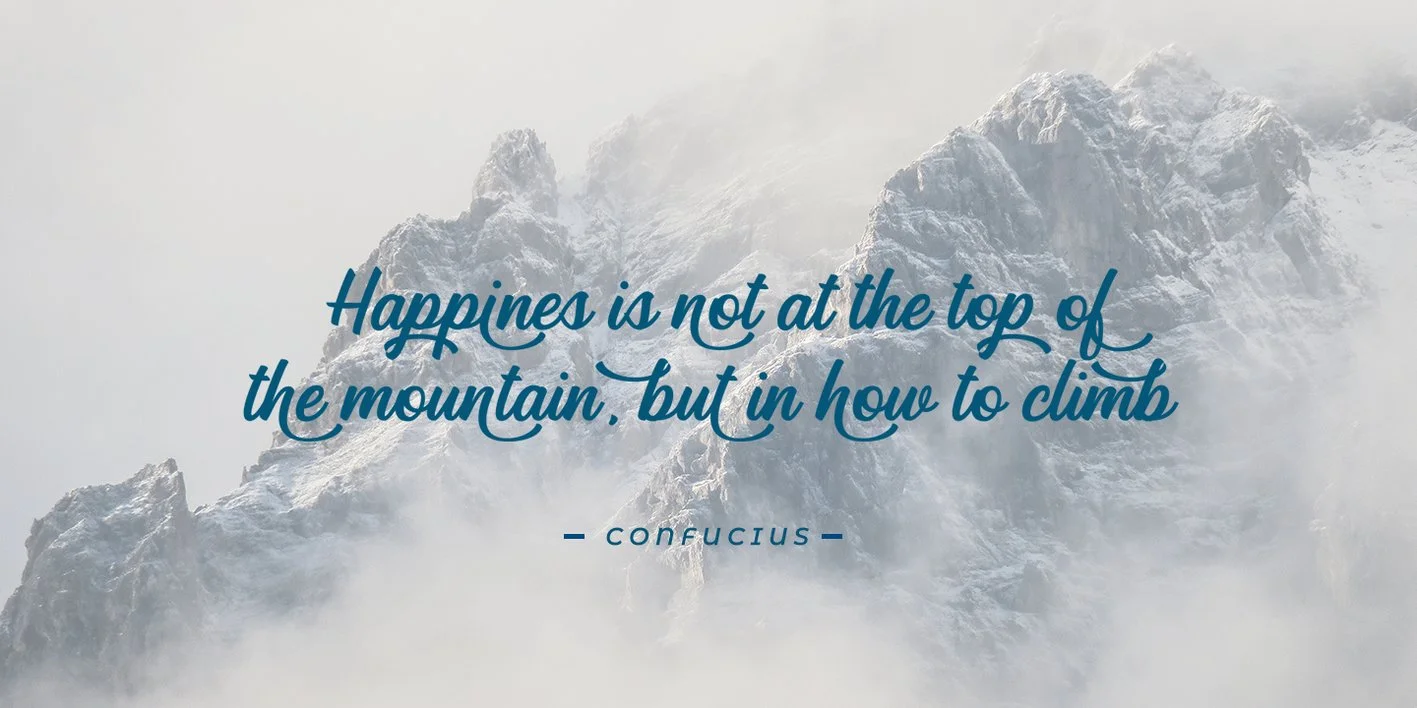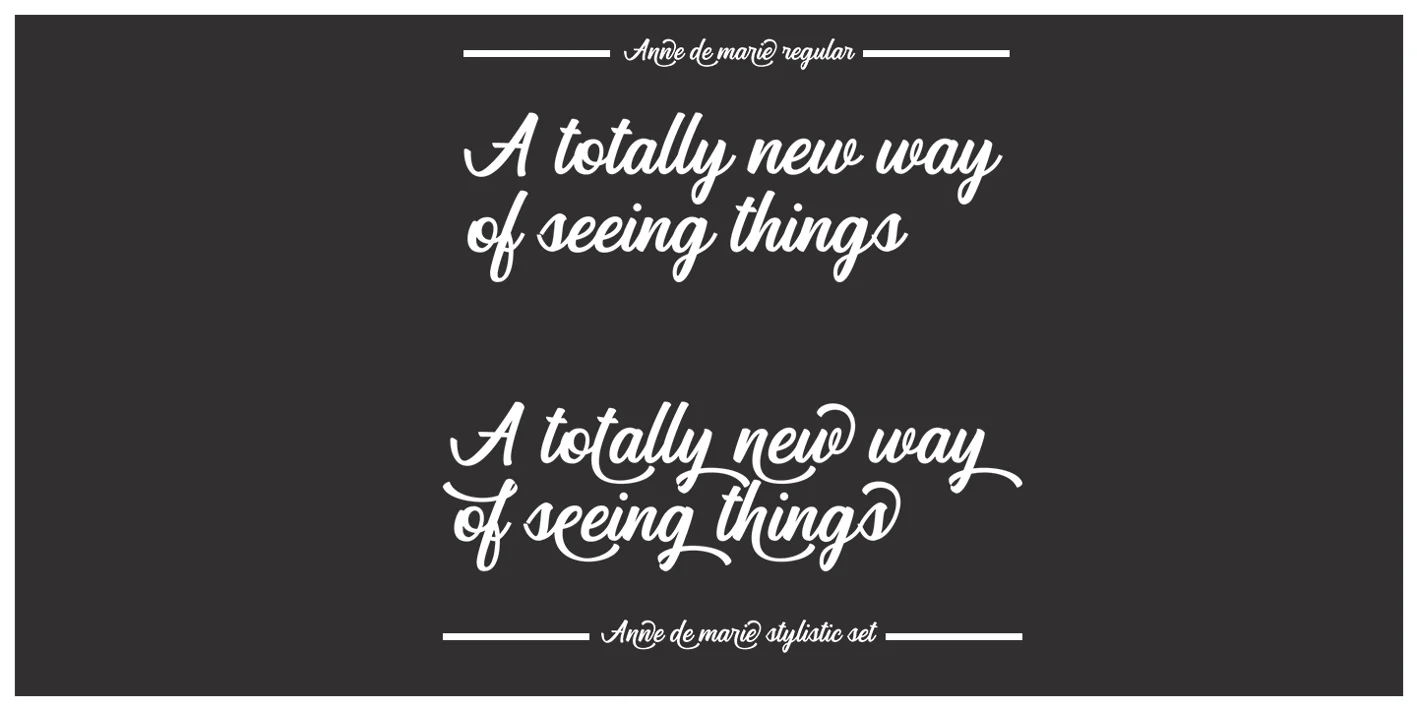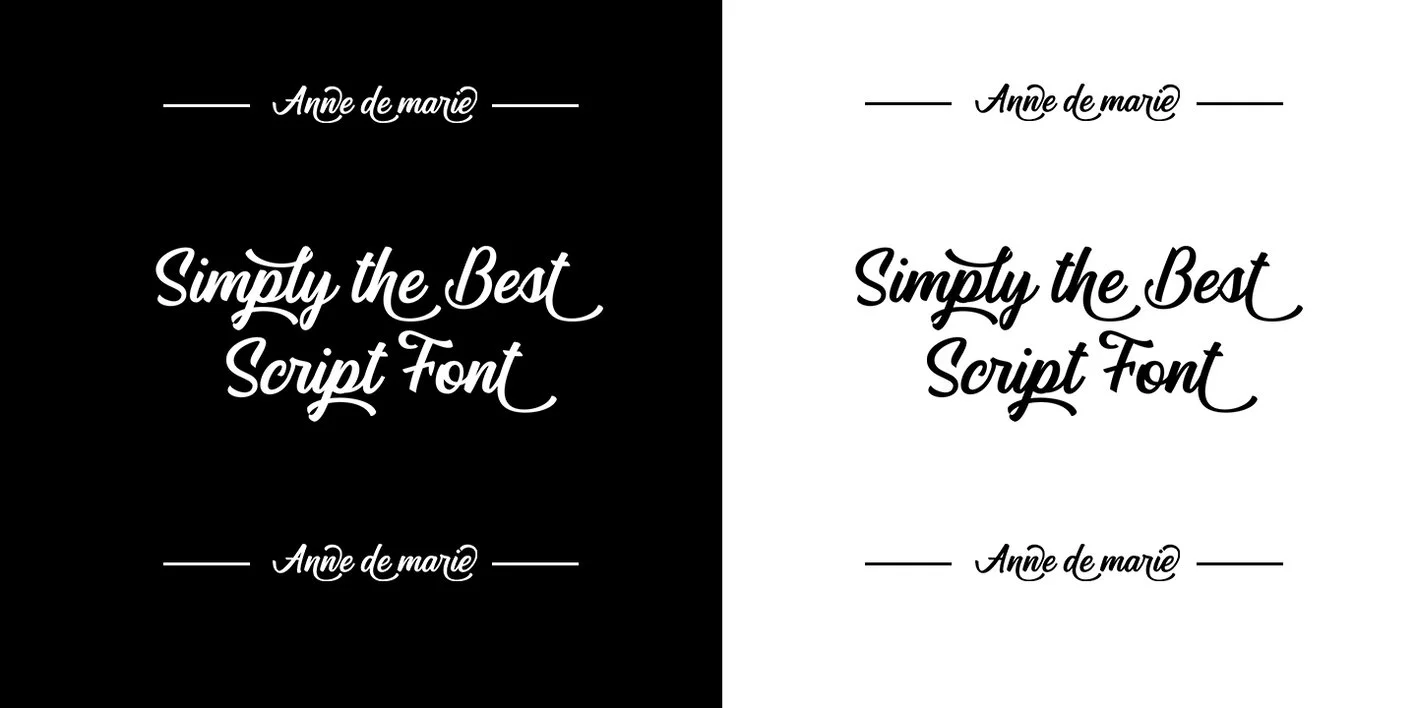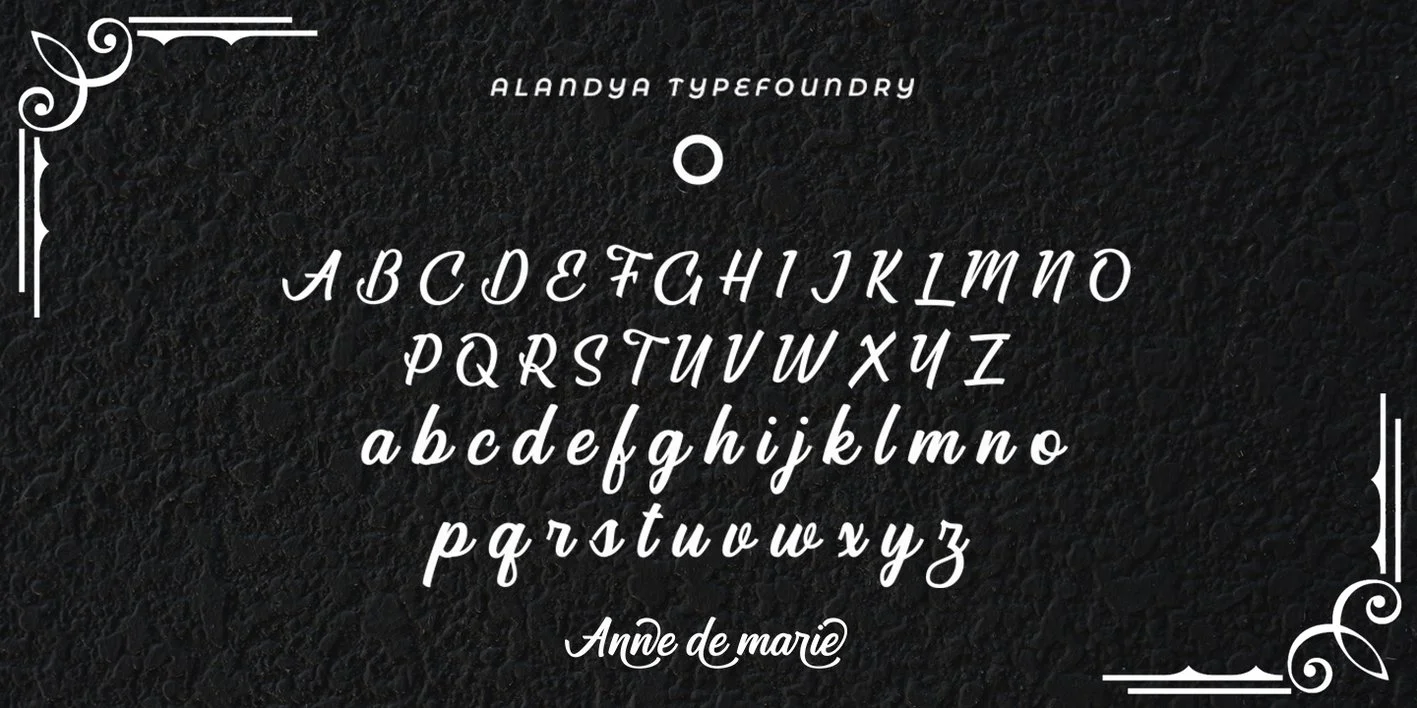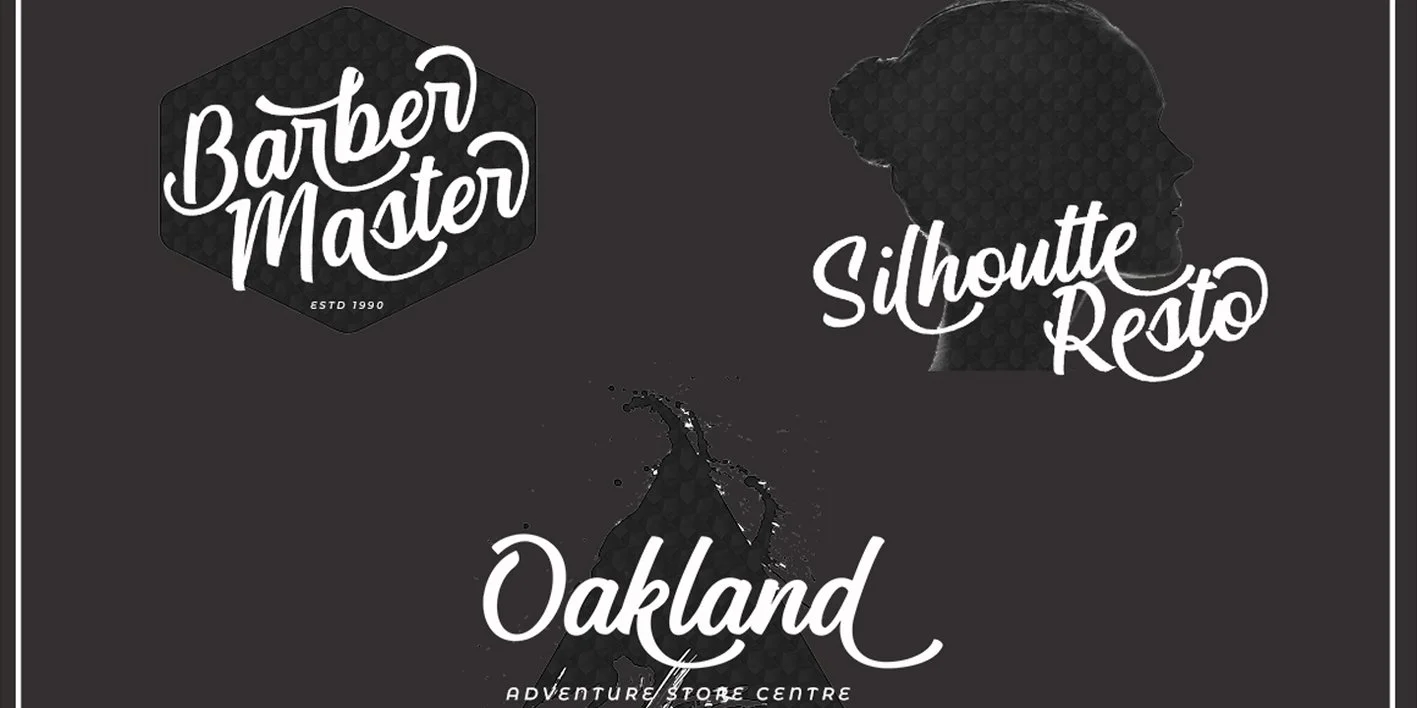
Anne de Marie Font
When a design brief calls for both versatility across print and screen contexts and immediate visual impact, type choices matter — Anne de Marie answers that brief. The typeface brings an elegant, calligraphic sensibility to a broad range of creative disciplines, with a confident voice that adapts to diverse briefs that holds up whether the work is print-first or screen-first.
In practice, Anne de Marie proves particularly effective for web design, environmental graphics, advertising campaigns, annual reports, packaging design. Designers reaching for it find that the type decisions feel resolved rather than laboured — a useful quality when client timelines are tight.
Ascenders and descenders are drawn with generous extents that give the script its characteristic rhythm. Ligature pairs have been individually tested to prevent collisions, and the baseline is slightly bounced to suggest a natural, unhurried hand.
The range of applications extends to logo design, signage systems, boutique logos, product labels. That breadth is deliberate: the proportions and spacing were stress-tested across a wide range of mock briefs before the typeface was finalised.
At smaller sizes the design retains its character without becoming cluttered. This resilience across scales makes Anne de Marie equally suitable for a business card and a billboard — a useful property when assets must scale across a campaign.
UX designers establishing typographic systems for digital products find Anne de Marie a reliable choice for projects that demand both personality and restraint. The design avoids the self-conscious quirkiness that dates quickly, settling instead for considered distinctiveness that holds up over time.